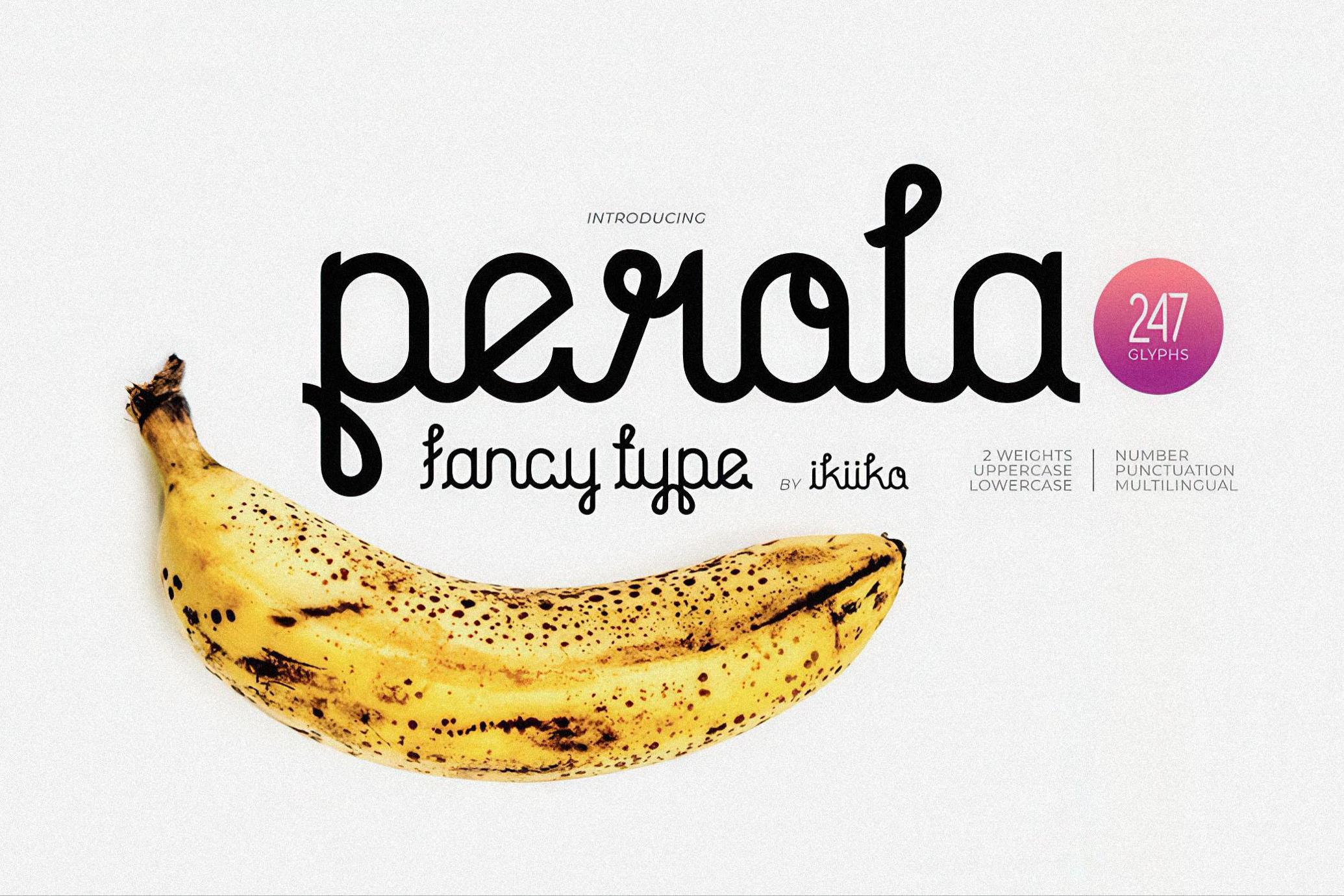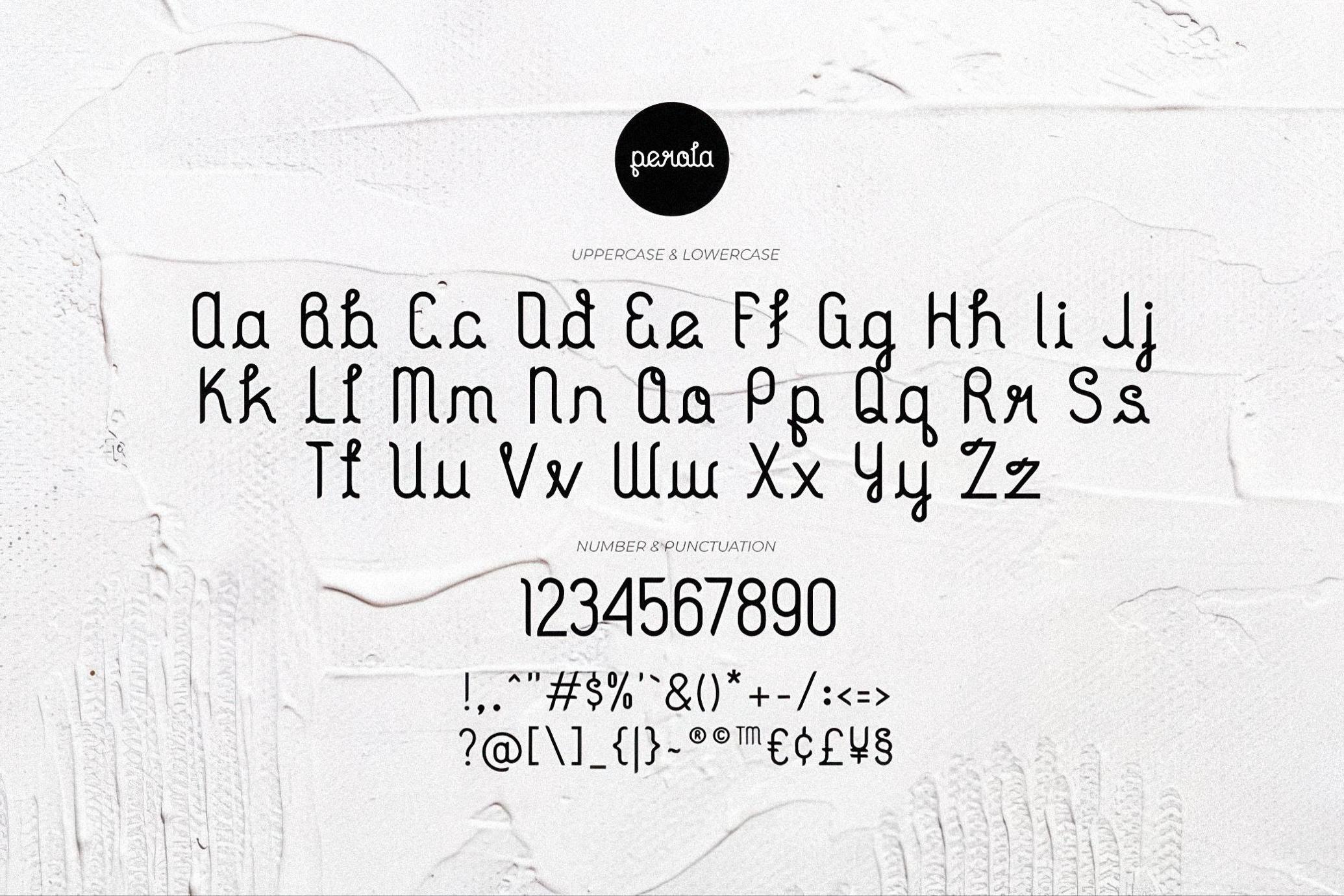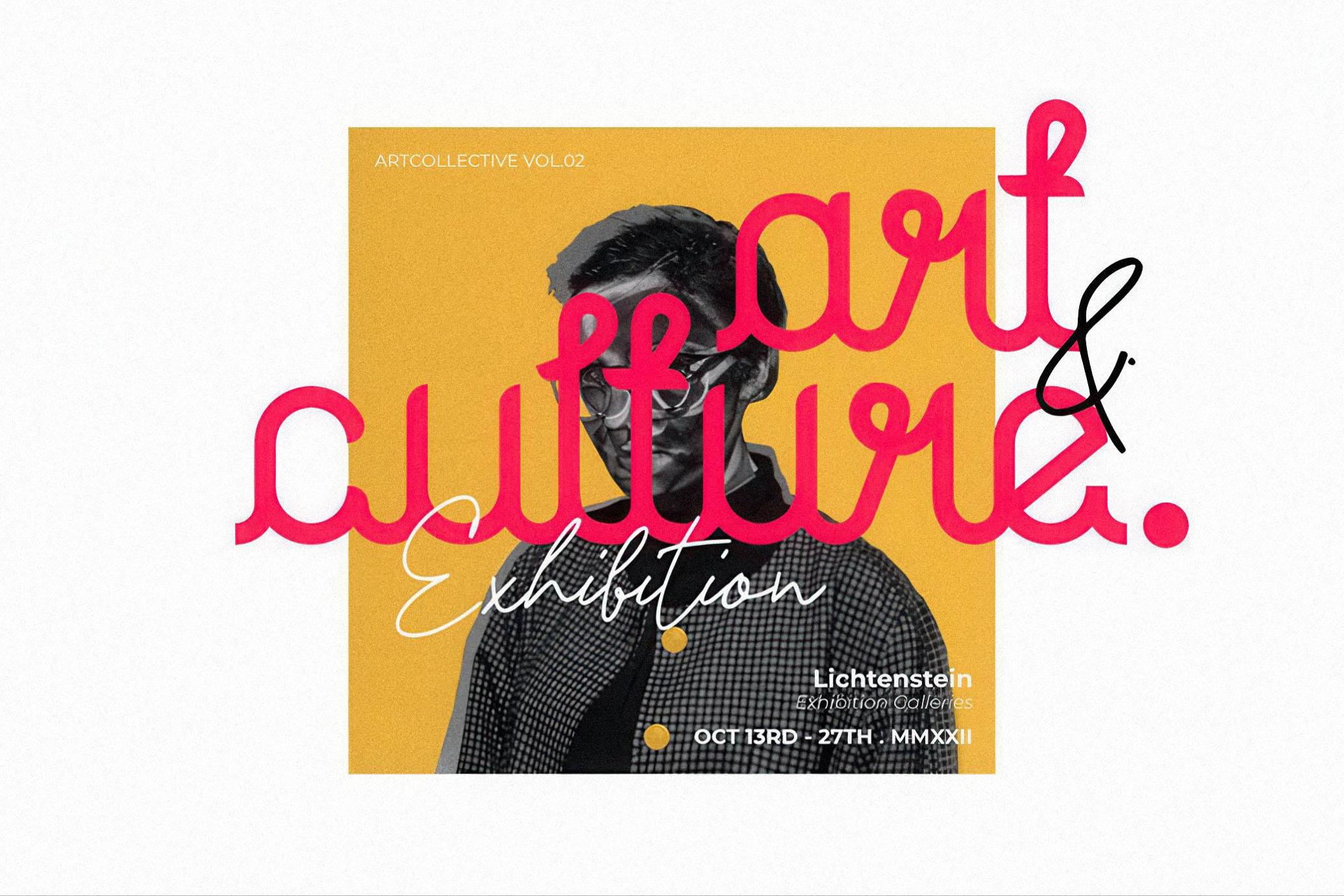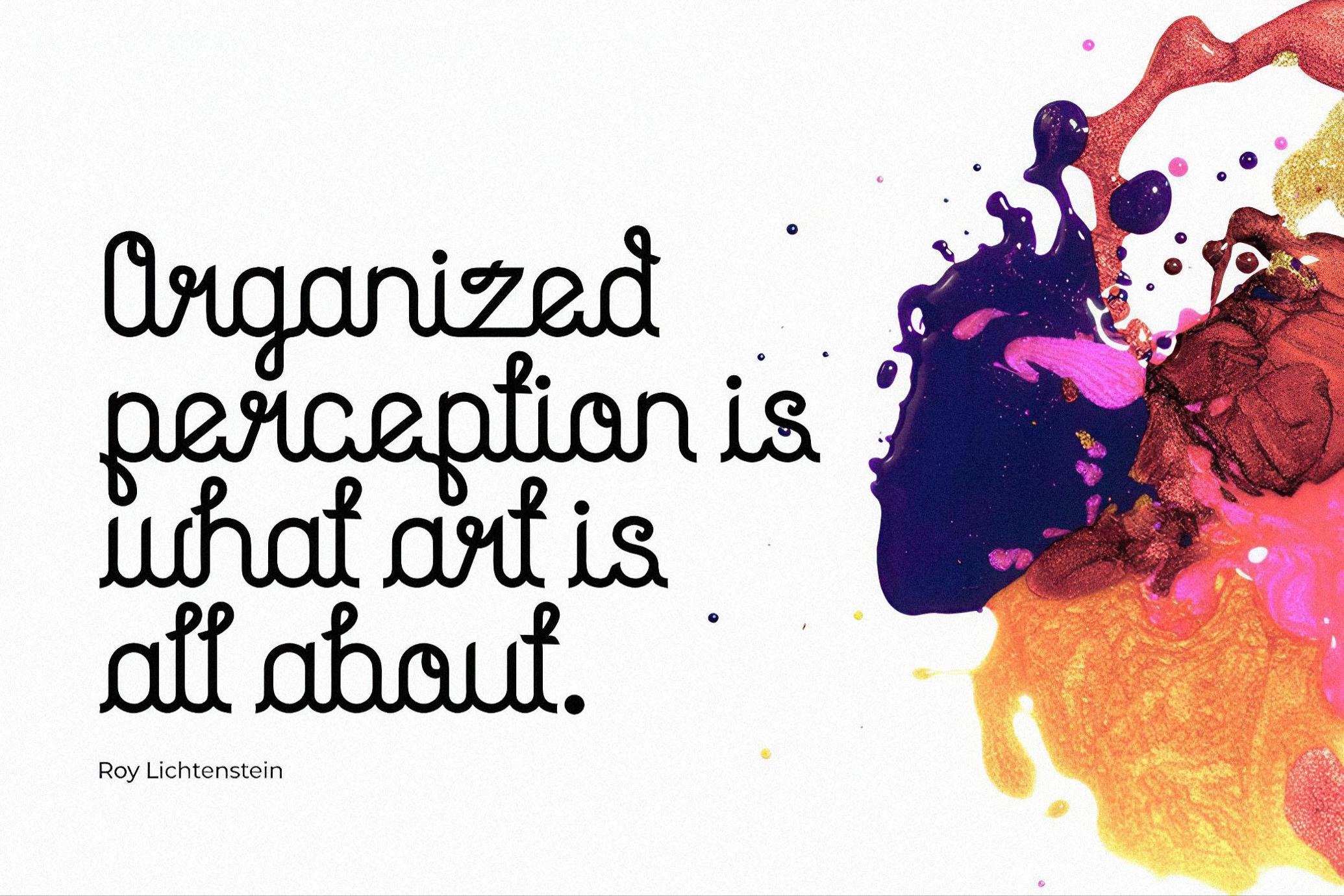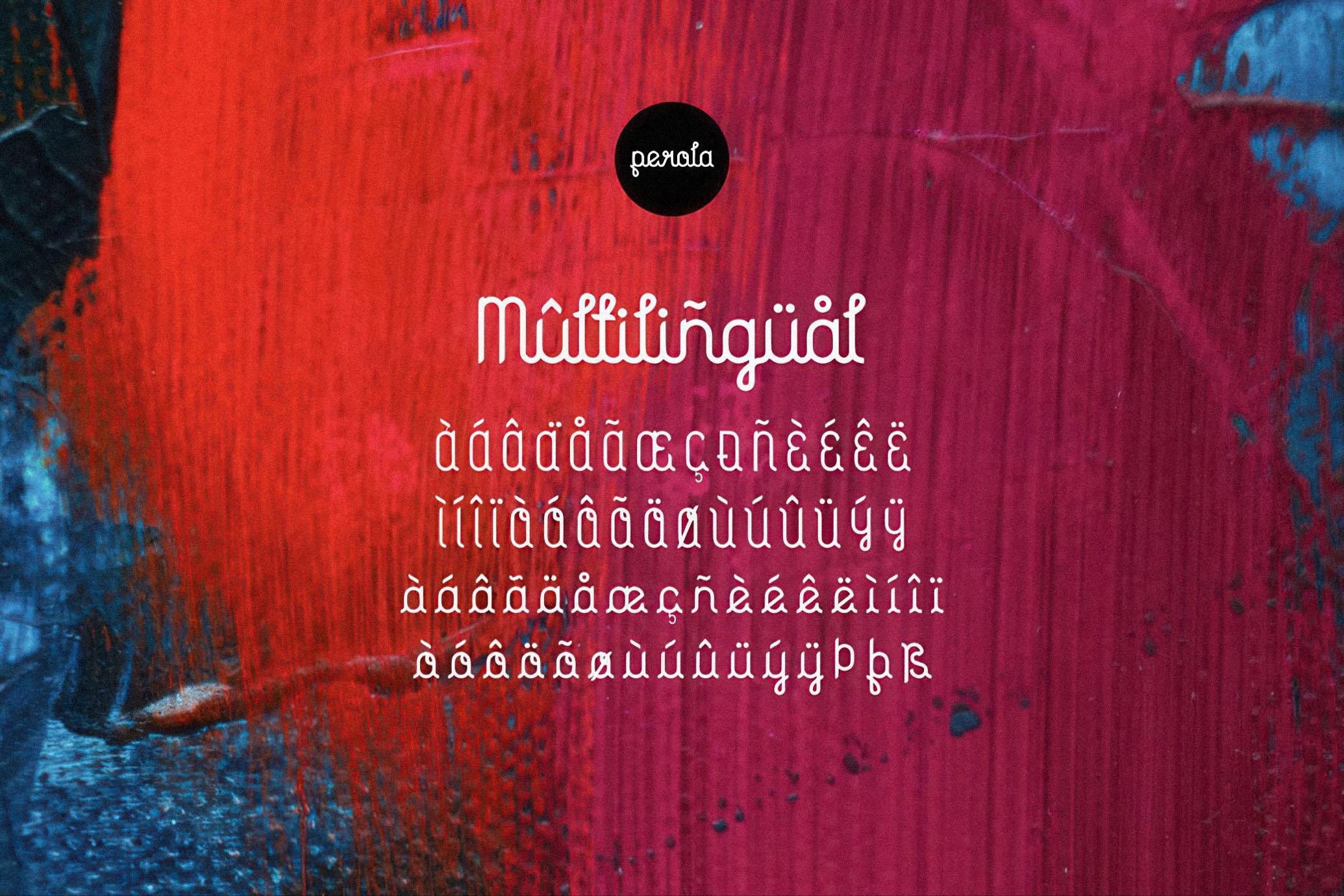
Perola - Fancy Font
Perola
Perola means "pearl" and comes from spanish language. This letter has a distinctive feature on its hook, which is in the form of a unique and dynamic curve. This letter is suitable if you want to show a cheerful impression or playful design with solid color. This typeface is perfect for an cute branding, pop art design, packaging product, food & beverages, quotes, or simply as a stylish text overlay to any background image.